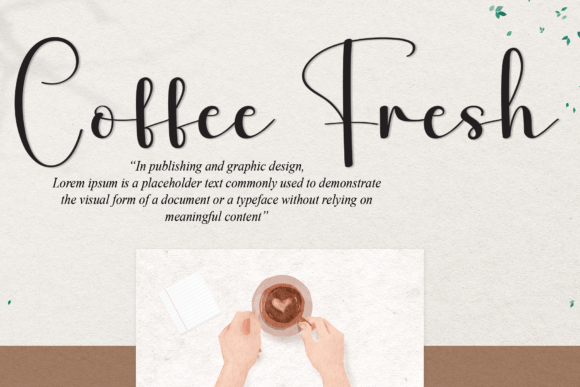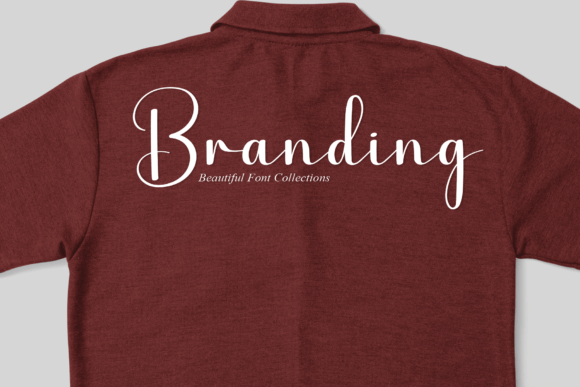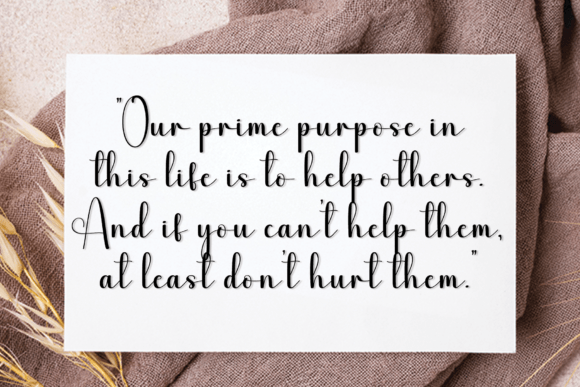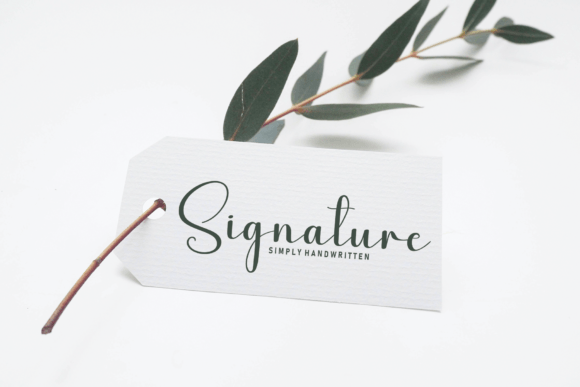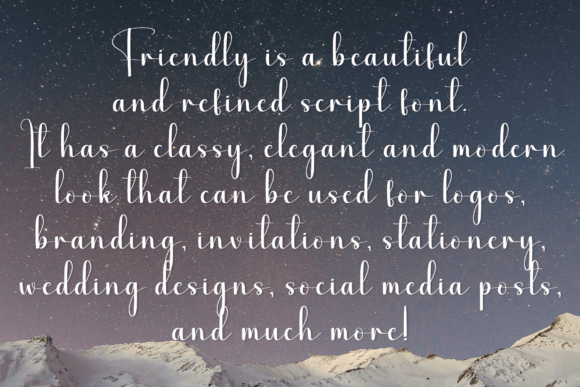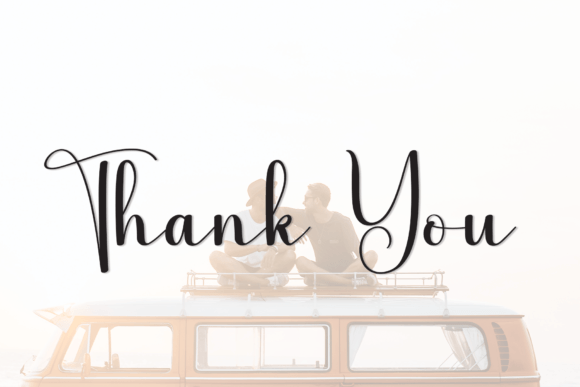
Introducing Friendly Font: The Perfect Addition to Your Design Arsenal
Are you tired of using the same old fonts in your designs? Look no further than Friendly Font, an enchanting handwritten script font that’s sure to add a touch of romance and whimsy to your next project. With its versatile nature and wide range of applications, Friendly Font is the perfect addition to any designer’s arsenal.
What is Friendly Font?
Friendly Font is a beautiful, handwritten script font that’s designed to evoke a sense of warmth and personality. Its elegant, cursive strokes and charming letterforms make it perfect for a wide range of design applications, from greeting cards and invitations to headlines and titles.
The Characteristics of Friendly Font
So, what makes Friendly Font so special? Here are just a few of its key characteristics:
- Handwritten feel: Friendly Font has a distinctly handwritten feel that’s perfect for adding a personal touch to your designs.
- Versatile: Whether you’re designing a greeting card, a headline, or a title, Friendly Font is versatile enough to adapt to any design application.
- Romantic: With its elegant, cursive strokes and charming letterforms, Friendly Font is guaranteed to add a romantic feel to your designs.
- Easy to read: Despite its handwritten feel, Friendly Font is surprisingly easy to read, making it perfect for use in body text as well as headlines.
Uses for Friendly Font
So, what can you use Friendly Font for? The possibilities are endless! Here are just a few ideas to get you started:
- Greeting cards: Add a personal touch to your greeting cards with Friendly Font’s charming, handwritten feel.
- Invitations: Whether you’re planning a wedding, a birthday party, or just a casual get-together, Friendly Font is the perfect choice for your invitations.
- Headlines and titles: Add a touch of elegance and sophistication to your headlines and titles with Friendly Font’s elegant, cursive strokes.
- Branding and packaging: Use Friendly Font to add a personal touch to your branding and packaging, and stand out from the competition.
Tips for Using Friendly Font
Here are a few tips for getting the most out of Friendly Font:
- Use it sparingly: While Friendly Font is beautiful, it can be overwhelming if used too much. Use it sparingly to add a touch of elegance and sophistication to your designs.
- Pair it with other fonts: Friendly Font pairs beautifully with other fonts, so don’t be afraid to experiment with different combinations.
- Experiment with colors: Friendly Font looks beautiful in a range of colors, so don’t be afraid to experiment and find the perfect hue for your design.
In conclusion, Friendly Font is a beautiful, versatile script font that’s perfect for adding a touch of romance and whimsy to your designs. With its wide range of applications and easy-to-read letterforms, Friendly Font is the perfect addition to any designer’s arsenal. So why not give it a try and see the magic for yourself?